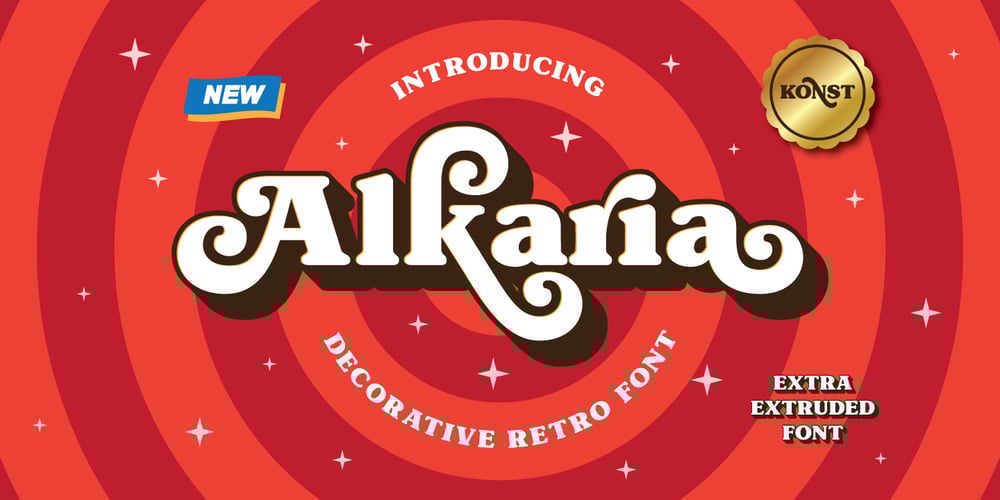
Alkaria Font Family was designed by Abdilah and published by Konstantine Studio. Alkaria contains 2 styles and family package options. Please welcome, Alkaria. Fun and casual vintage retro decorative font. The definition of real versatility and flexibility. You can rock on both vibes, retro and modern by using a single font. Yes, just like your favourite day-to-day sneakers.Wide variety of Stylistic Alternates and Ligatures in every single letter to elevate your design game to the next level. And it comes in 3d Shadow version too. Cut the process more because it should be easy.Perfectly fit for the visual project such as logo, branding, poster, food and beverages, social media content, website, UI/UX design, youtube thumbnail, CV, mood board, wedding, you name it.